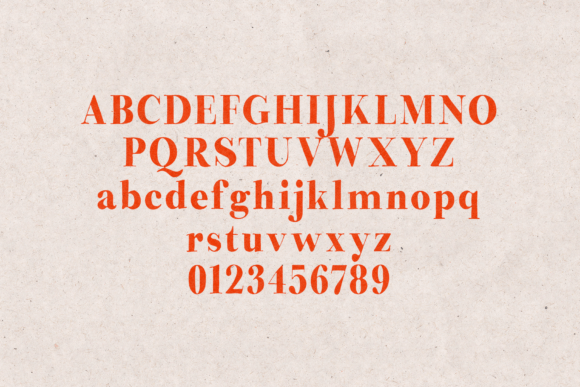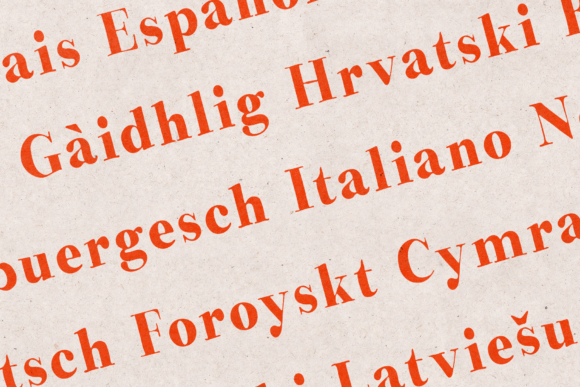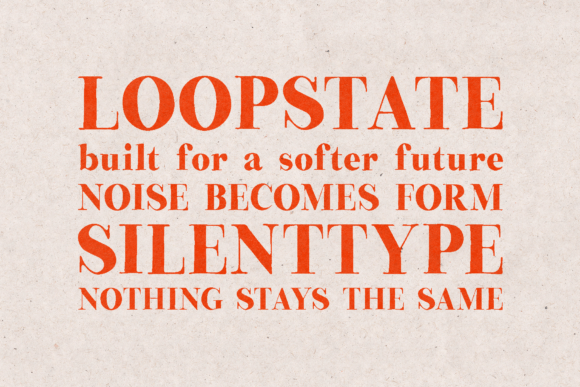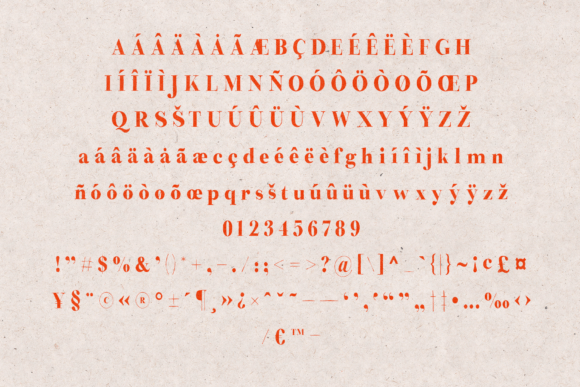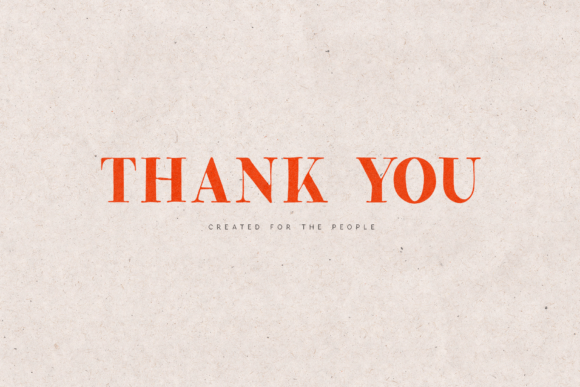
Introduction to Preta Font
Preta is an organic serif font designed with warmth, balance, and subtle character.
Its softly sculpted letterforms, gentle contrast, and natural rhythm give it an elegant yet approachable presence that feels human, timeless, and expressive Perfect for branding, editorial design, packaging, book covers, magazines, quotes, and lifestyle projects, Preta brings a refined organic tone that sits beautifully between classic serif tradition and modern sensibility.
Key Features of Preta Font